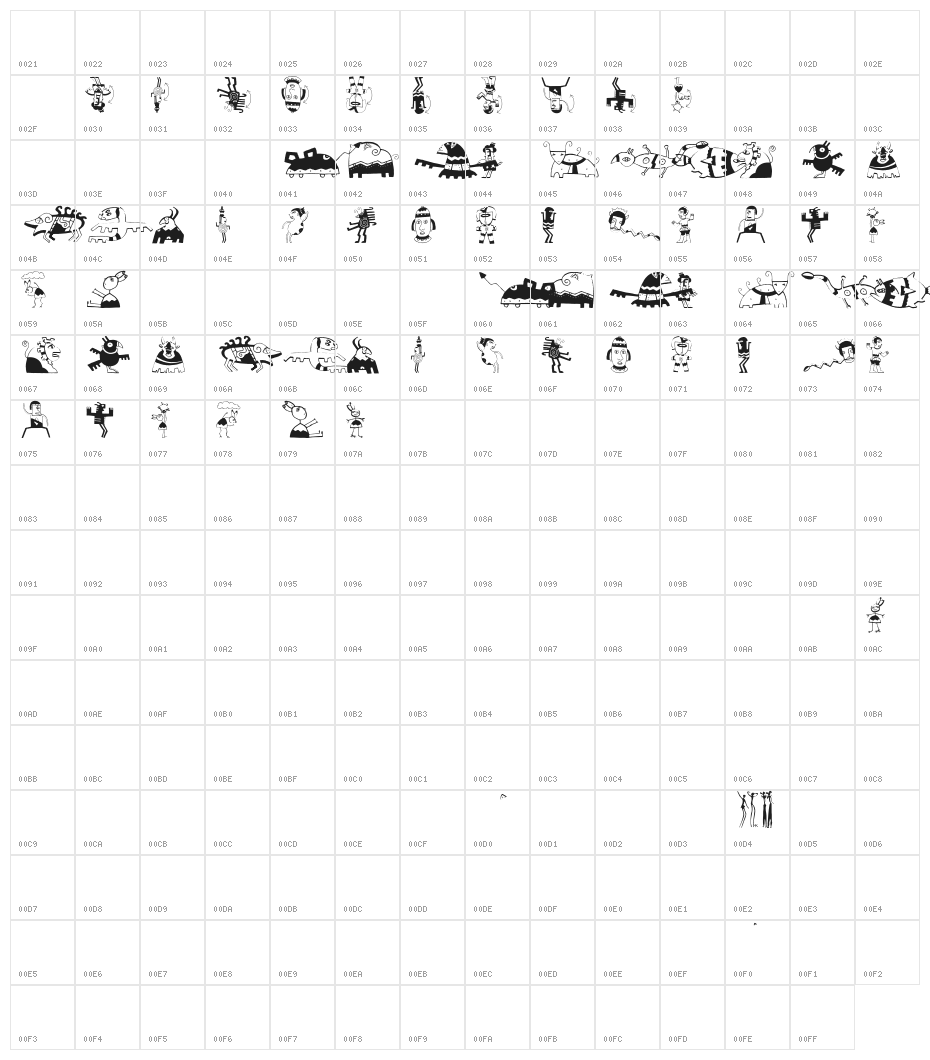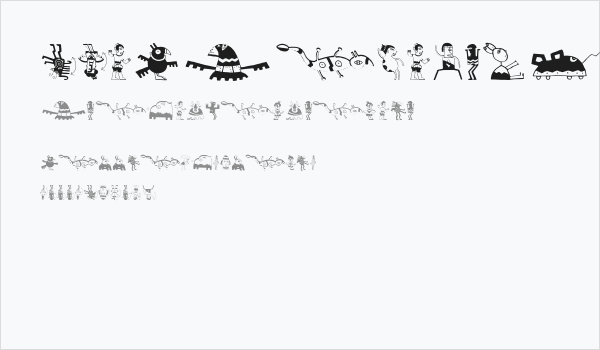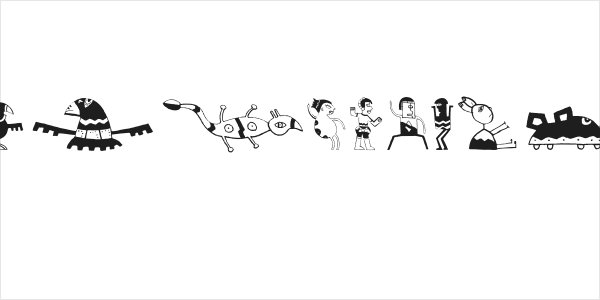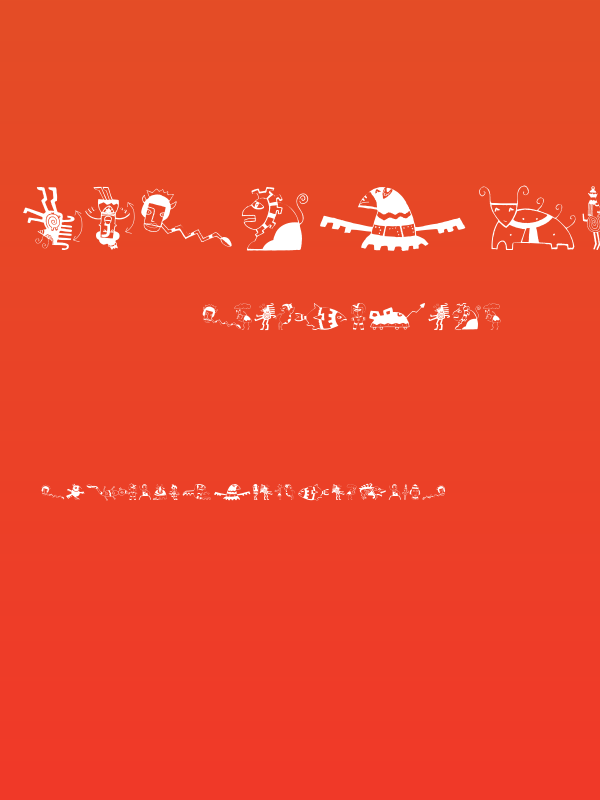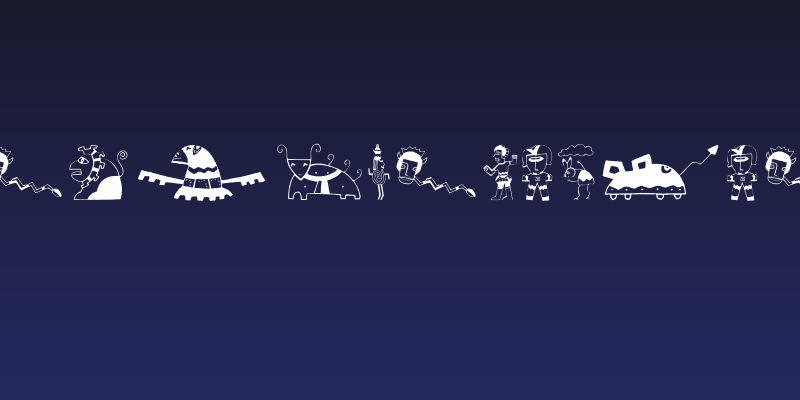
20thCenturyArt01 Font
20thCenturyArt01 Description
This is not a traditional font but rather a collection of whimsical and abstract illustrations. Each character is represented by a unique, playful drawing that resembles a mix of cartoonish figures and abstract art. The designs are highly stylized, featuring bold lines and exaggerated forms. These illustrations are more akin to artwork than typographic characters, making them unsuitable for standard text representation.
| Use Case | Logos, Art projects |
| Proposed Projects | Ideal for creative projects such as art installations, unique branding elements, or playful graphic designs. |